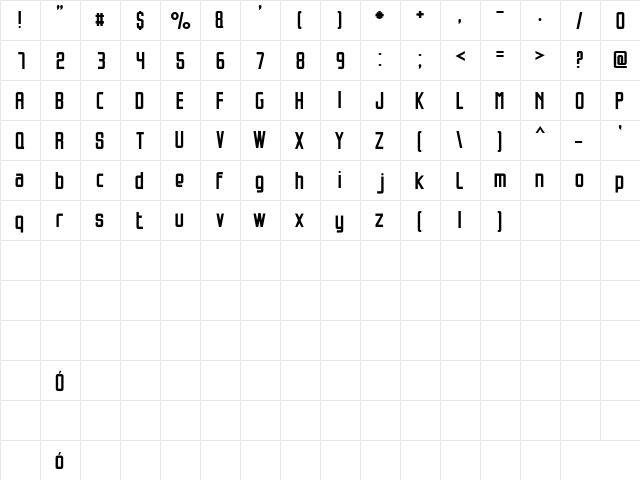
Opeln2001 Szeroki Metro Regular
Design Context for Opeln2001 Szeroki Metro Typeface
Opeln2001 Szeroki Metro is a composed and adaptable typeface that performs quietly and consistently across a wide range of design contexts.